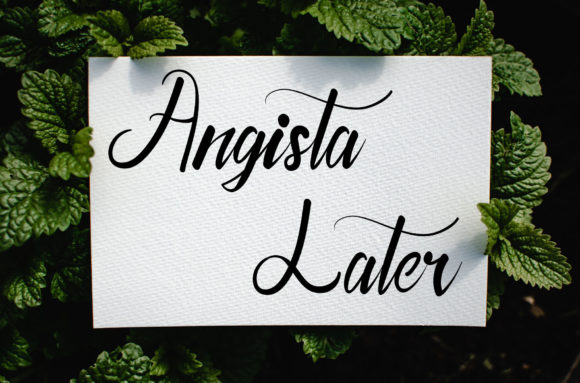
The Designer’s Delight: Angista Later Font
I still remember the time I was working on a wedding invitation project, and my client asked for a font that was both elegant and playful. I scoured the internet, tried out countless fonts, but nothing seemed quite right. That was until I stumbled upon Angista Later Font. It was love at first sight! 💕 This beautiful script font has been a game-changer for my designs, and I’m excited to share its awesomeness with you.
• ✨ Elegant and sophisticated, yet approachable and friendly
• ✅ Works incredibly well on quotes, logos, card writing, or even wedding invitations
• 💫 Simple vibe makes designs look impeccable
• 🎨 Highly versatile and adaptable to various design styles
While Angista Later Font is an amazing font, it’s not perfect. Here are a few things to keep in mind:
• ⚠️ May not be suitable for very small font sizes (less than 10pt)
• 🤔 Some characters may not work well in all design platforms (more on this later)
Angista Later Font was created with the intention of crafting a beautiful, elegant script font that would be both versatile and approachable. The designer aimed to create a font that would work well in various design contexts, from formal to informal. With its simple yet sophisticated vibe, Angista Later Font has become a favorite among designers and crafters alike.
Q: What is the best use for Angista Later Font?
A: Angista Later Font works incredibly well on quotes, logos, card writing, or even wedding invitations. Its simple vibe makes designs look impeccable.
Q: Is Angista Later Font suitable for small font sizes?
A: While Angista Later Font is an amazing font, it may not be suitable for very small font sizes (less than 10pt). It’s best used at larger font sizes to showcase its elegance.